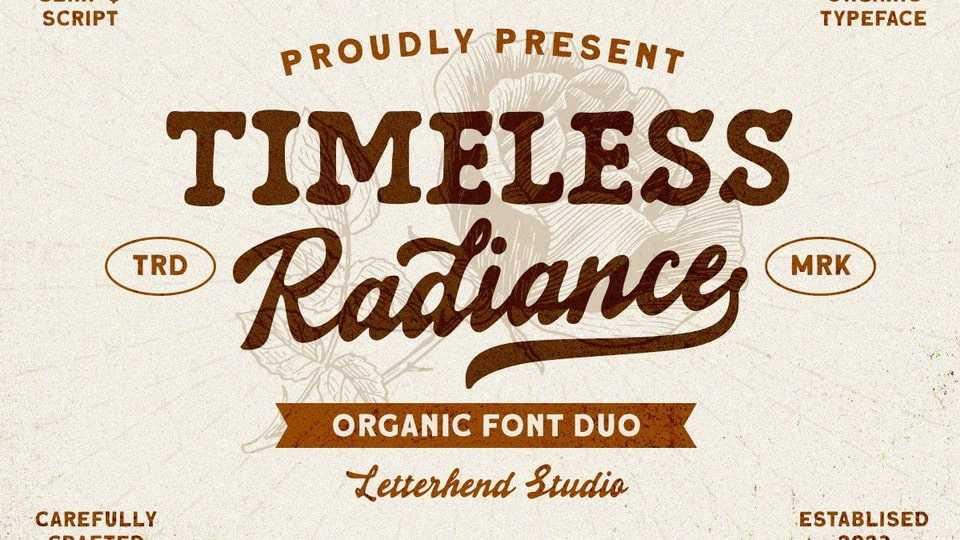
Download Timeless Radiance font, an organic font duo consist of a bold script paired with a slab serif with a touch of classic look and feel. This font perfectly made to be applied especially in logo, headline, signage and the other various formal forms.